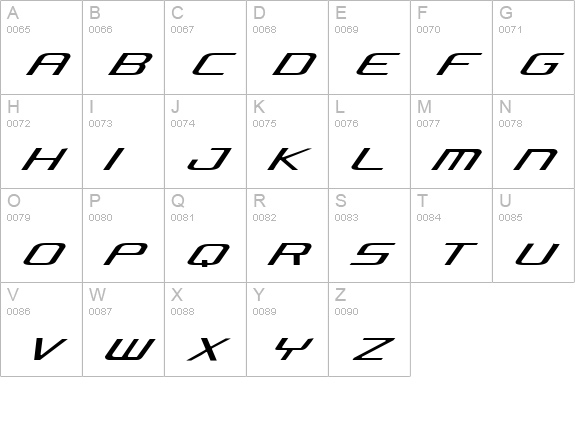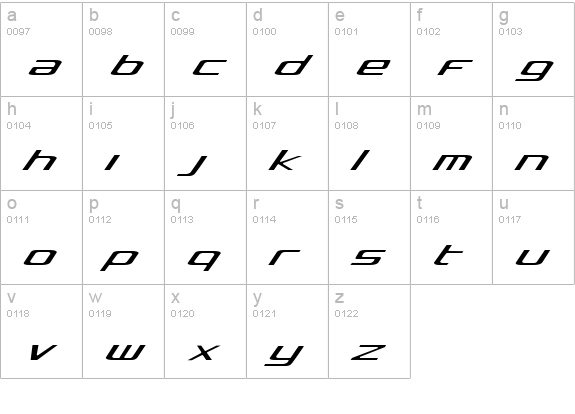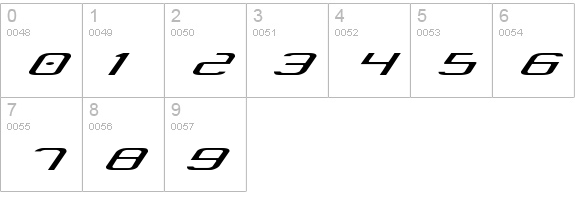
Concielian Light is a refined, elegant variant in the Concielian typeface family \xE2\x80\x94 well suited to elegant body text, refined sub-headings, and luxury branding.
Concielian Light font is a modern and elegant typeface that exudes sophistication and simplicity. It boasts clean lines and a timeless appeal, making it perfect for a wide range of design projects. The sleek and slender letterforms of Concielian Light add a touch of class to any text, making it ideal for branding, editorial design, and more. What sets Concielian Light font apart is that it is not only stylish and versatile, but also free to download. Yes, you read that right - this stunning font is freely available for download at FontsMarket.com. Now you can enhance your design projects with the beauty and refinement of Concielian Light without breaking the bank. Whether you're working on a logo, website, or printed materials, Concielian Light font will elevate your designs to the next level. Download it today from FontsMarket.com and see for yourself the impact this elegant typeface can have on your projects.